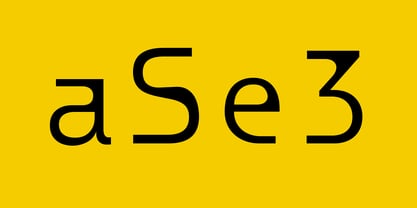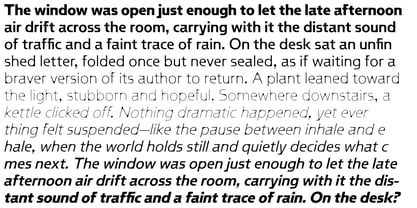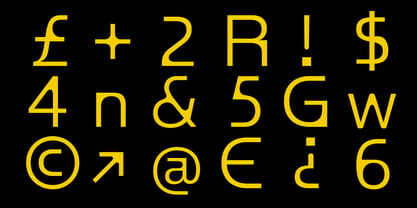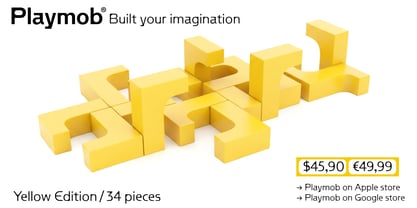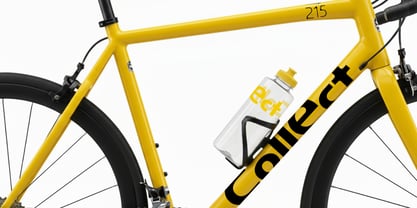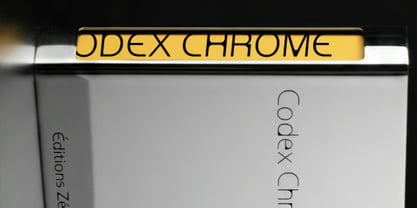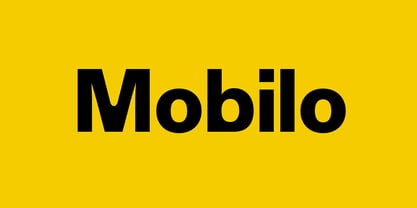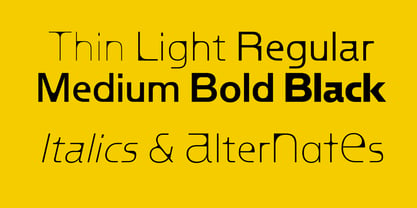
Mobilo
by Pizzatypefaces
The Mobilo Font Family was designed by Adrien Midzic and published by Pizzatypefaces. Mobilo contains 13 styles and family package options. More about this family
Mobilo is a typeface designed for clarity in motion and impactful speed. Crafted for screens and excelling in print, it blends geometric precision with a touch of warmth and playfulness, creating a voice that feels both immediate and intentional. This versatile typeface family ranges from Thin to Black, complete with matching italics, providing a full tonal spectrum suitable for everything from subtle interface text to bold, high-impact headlines. Its rational and compact structure is optimized for legibility across digital platforms and editorial environments. The counterforms are meticulously calibrated to fill naturally with ink, ensuring stability and consistency in print while maintaining sharp clarity on screens. Clear apertures and controlled proportions enhance readability at smaller sizes, while assertive forms deliver a confident presence at display scale. Mobilo adapts seamlessly across responsive contexts without losing its unique identity. Functional yet expressive, it embodies contemporary communication, merging efficiency with character and precision with accessibility, making it ideal for branding, web design, and editorial use.
Mobilo